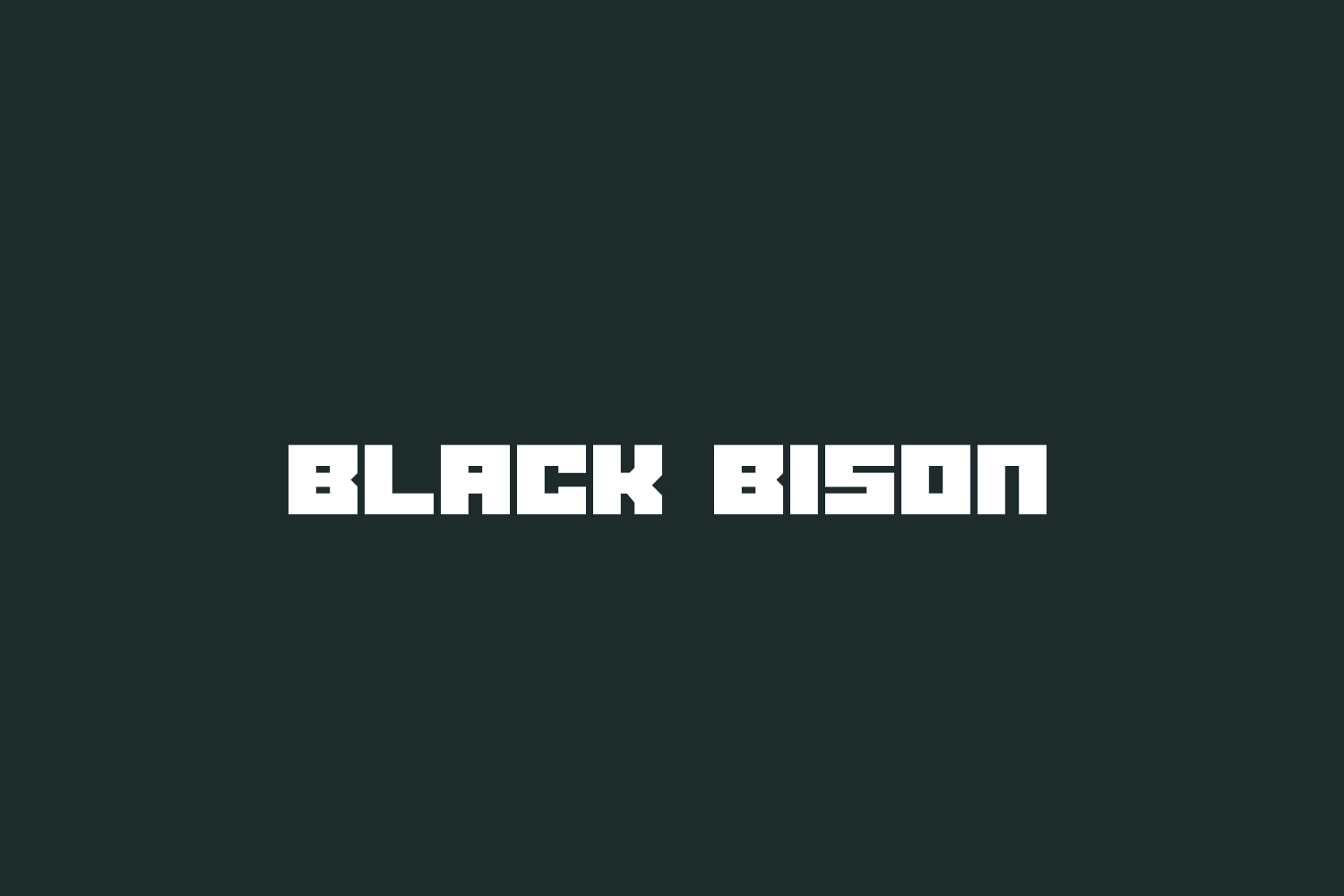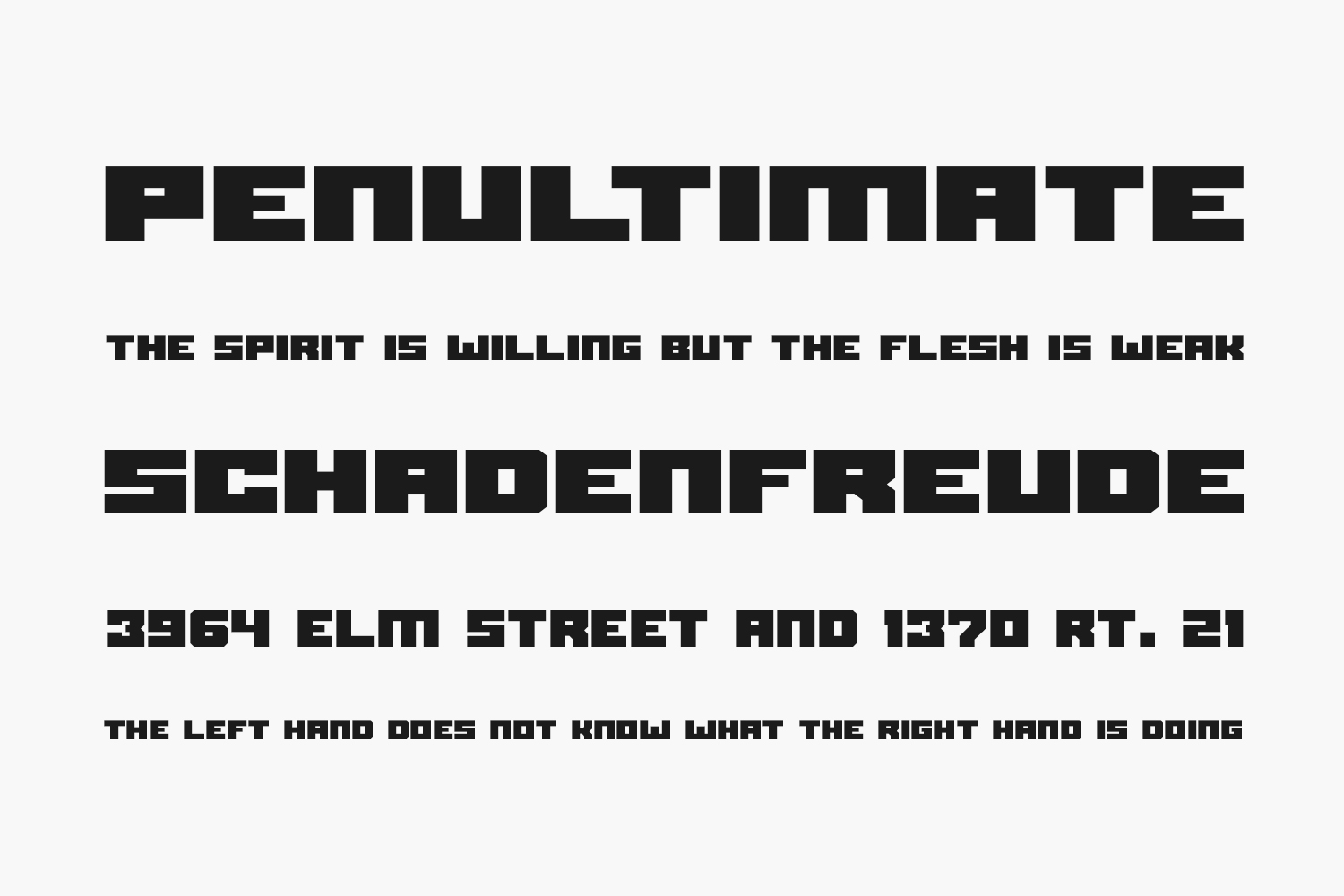
Black Bison Free Font is a display font unique, strong, and versatile serif family with alternates and Ligatures to create a more stunning display. Black Bison Free Font is free for personal use only.